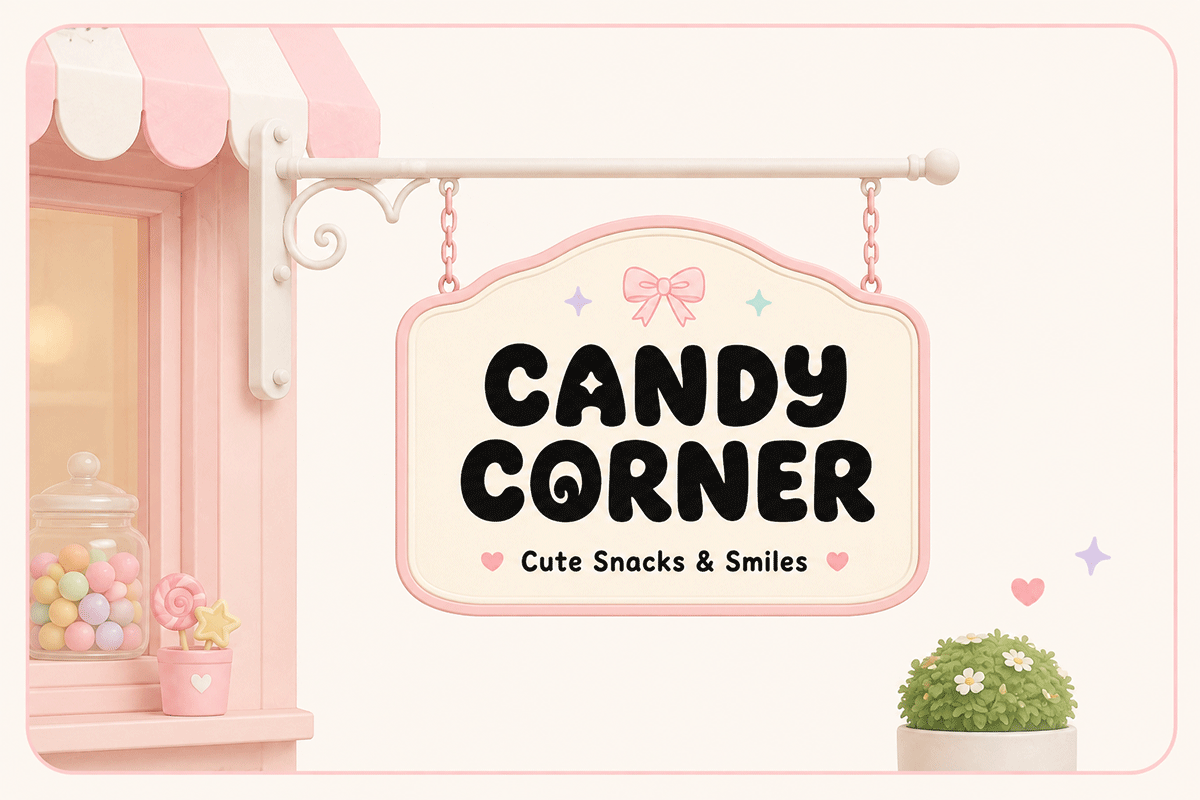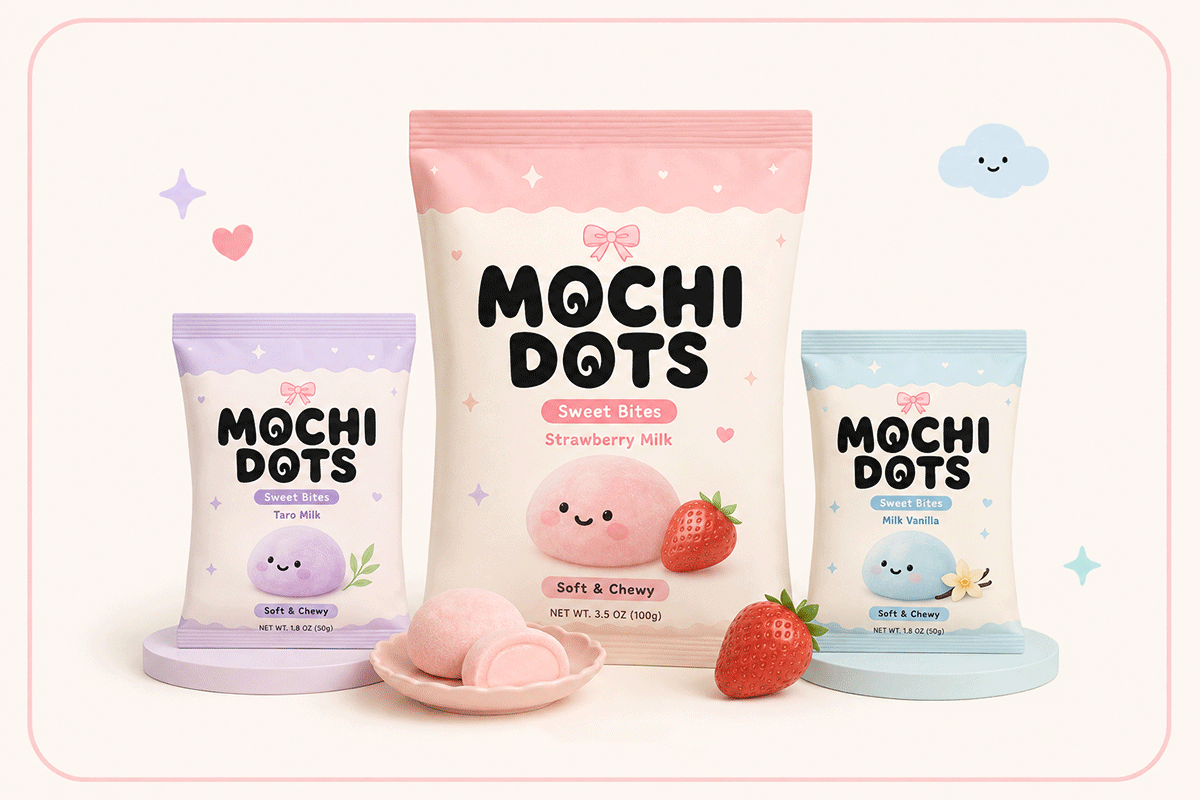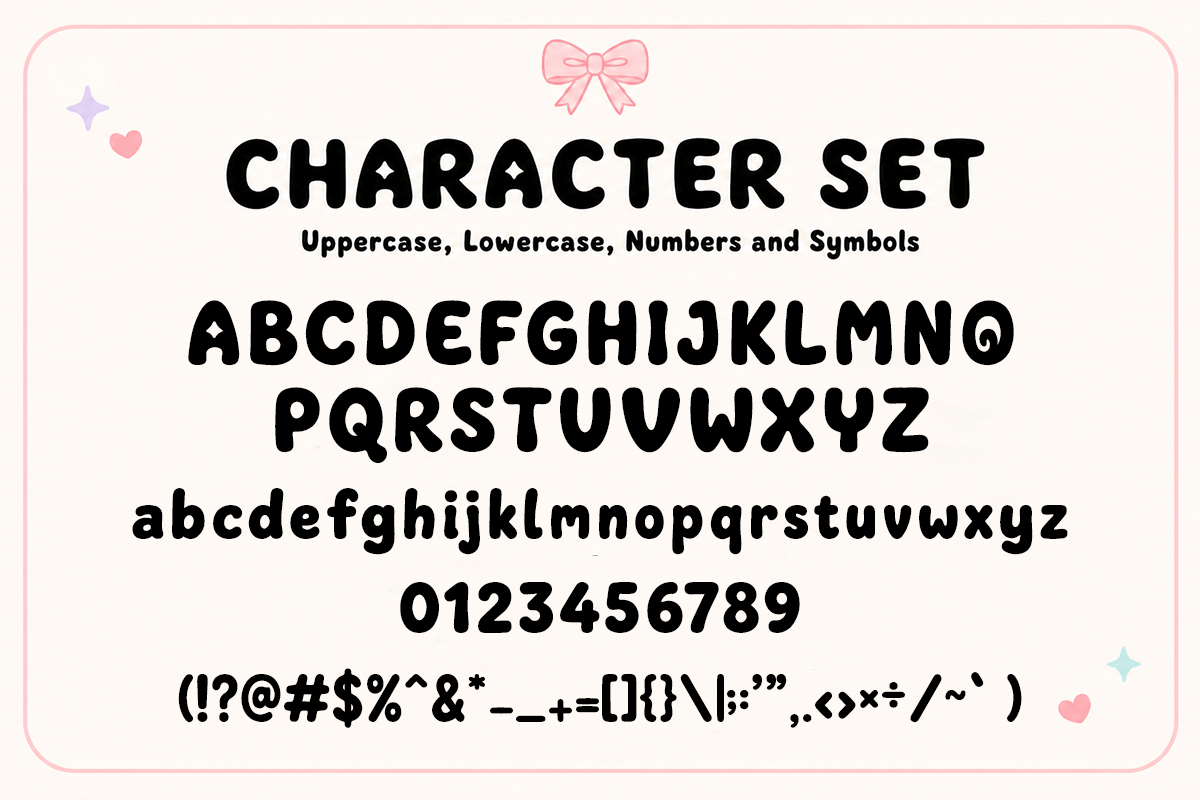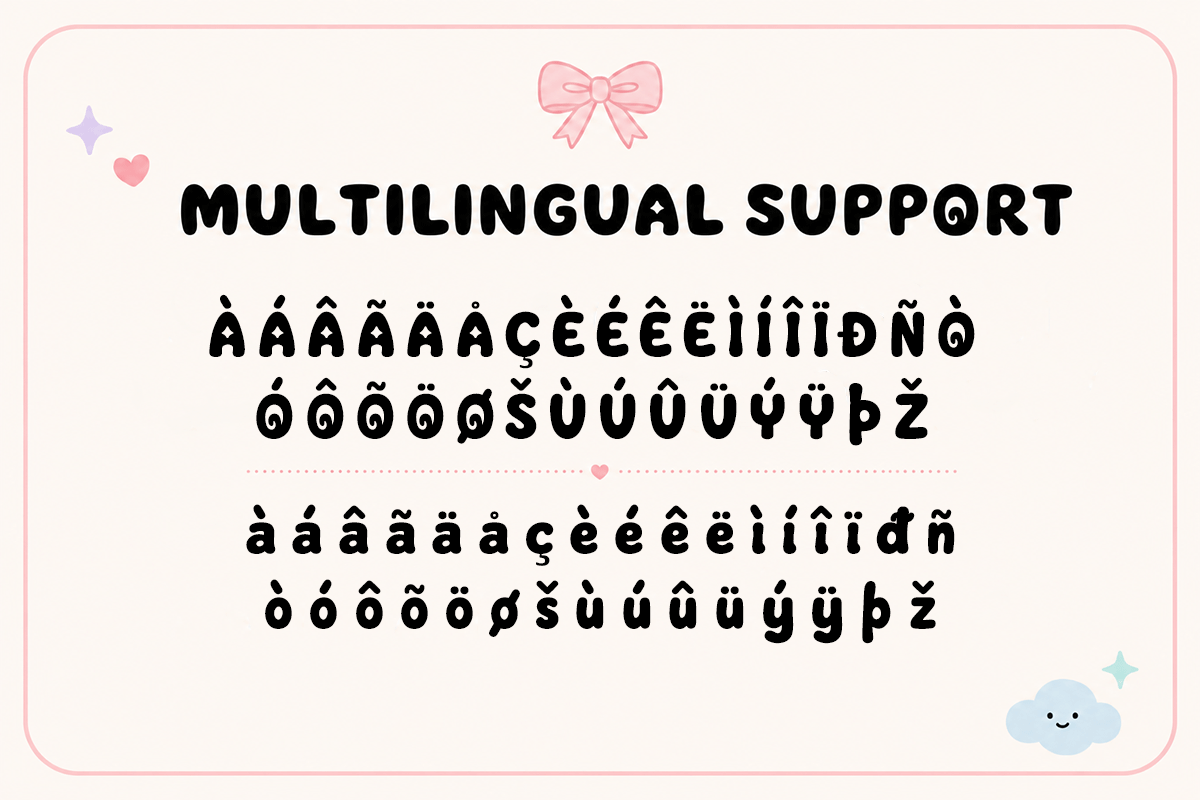
Wavora A Modern Display Cute Font is a cute, playful, and charming display font created to bring a soft and cheerful personality to your designs. With its bold rounded shapes, whimsical details, and friendly handmade feel, Wavora is perfect for projects that need a fun, sweet, and eye-catching look.
The font combines adorable character with strong readability, making it suitable for both playful branding and creative display work. Its unique letterforms add a joyful touch that feels modern, youthful, and full of personality. Whether you're designing a cute product package, a playful logo, or a cheerful social media post, Wavora A Modern Display Cute Font will help your work feel more friendly, memorable, and delightful. Our collection of Espot & Futuristic fonts is compatible to use as Figma fonts, Canva fonts, Freepik Fonts, and Adobe Fonts]. They also work as Windows Fonts, and Apple Fonts. For your social media needs, you can use and install fonts in our collection of Espot & Futuristic fonts to use as Instagram Fonts, Facebook Fonts, and Twitter Fonts.For our customers, we provide a collection of The Best display & E-sport Futuristic StyleFonts, each with its own unique styles and characteristics, so that our customers can create any design they want. We know what our clients love! That is why we prepare everything you may need in one simple downloadable package for you. Our easy-to-grab package contains all of the files you will ever need to create beautiful typography!